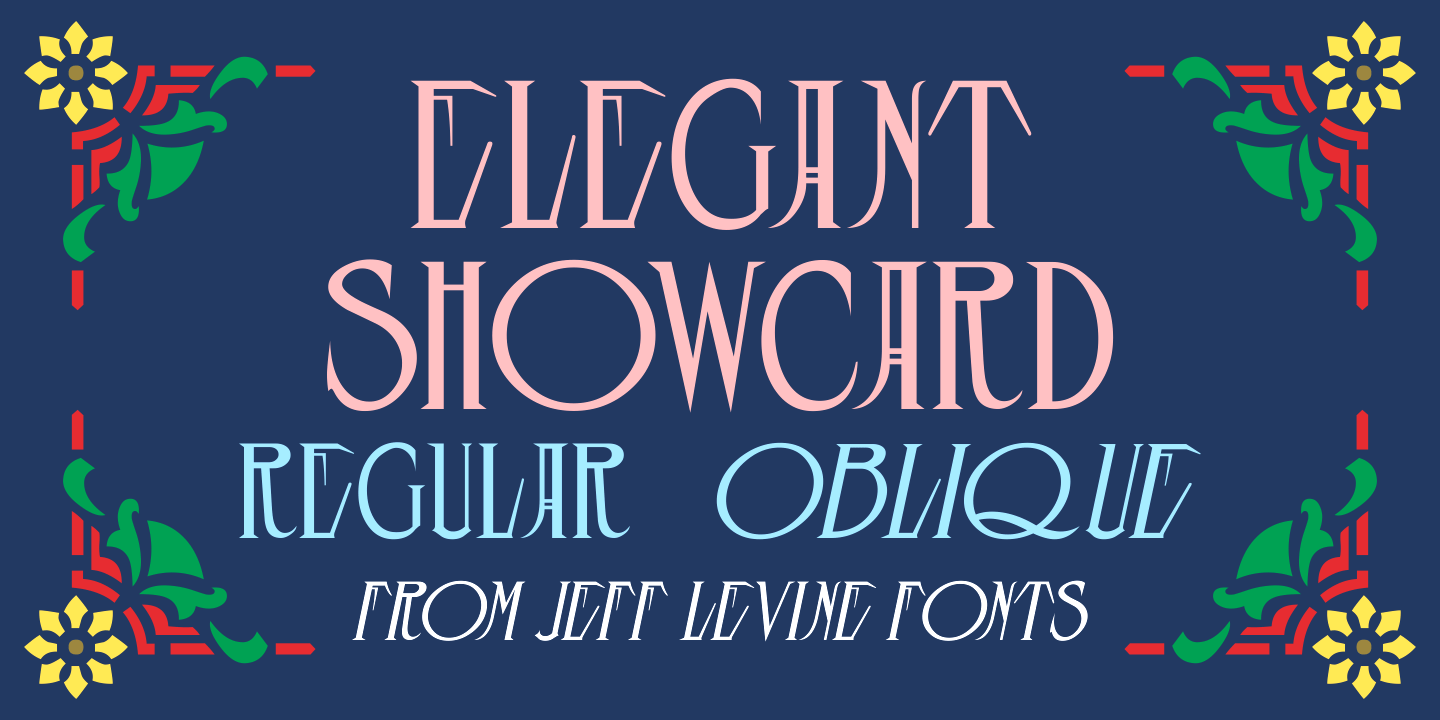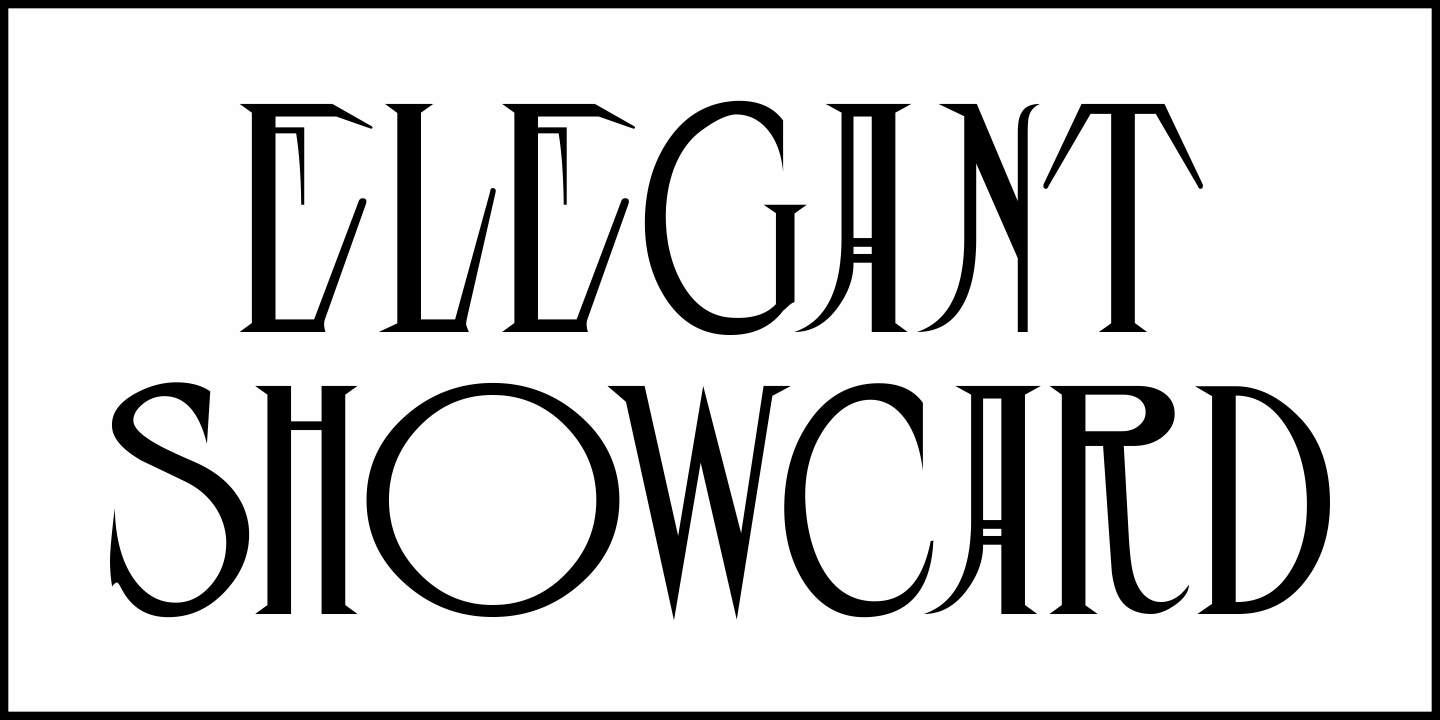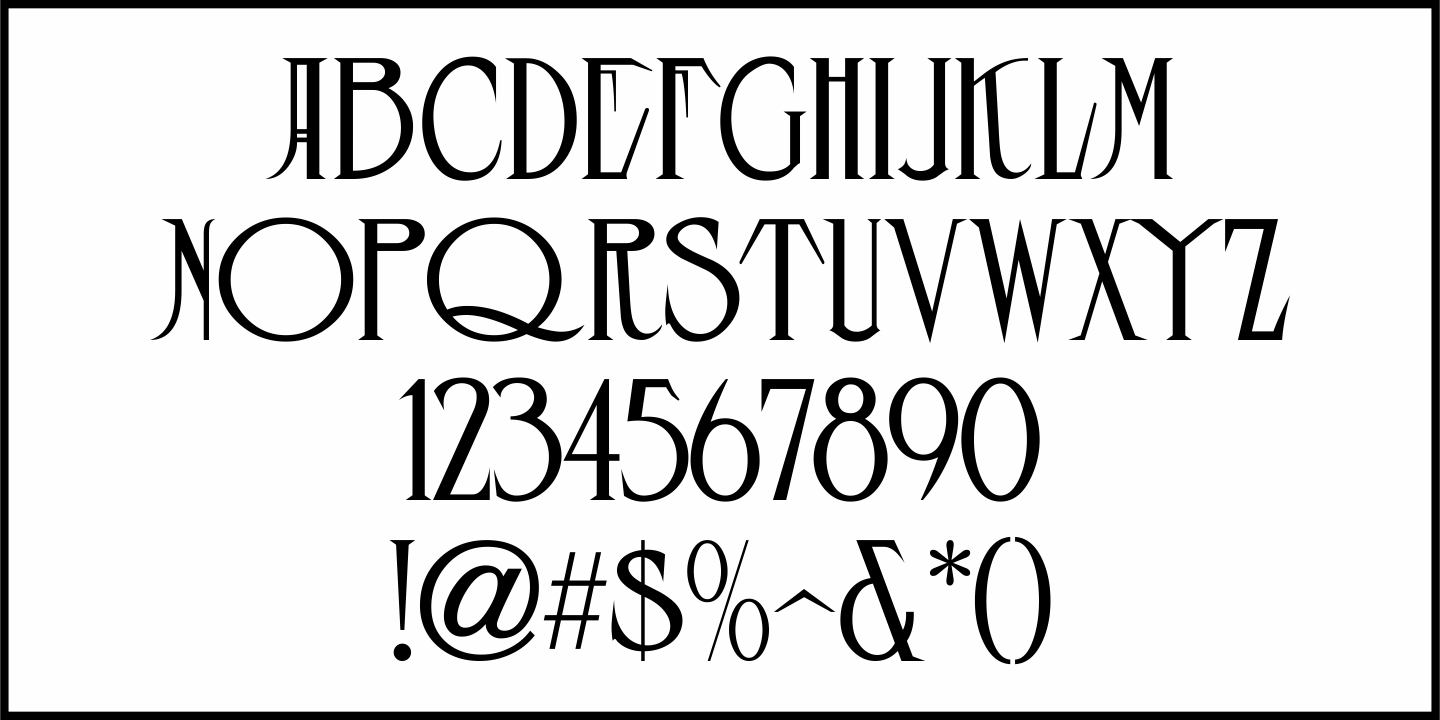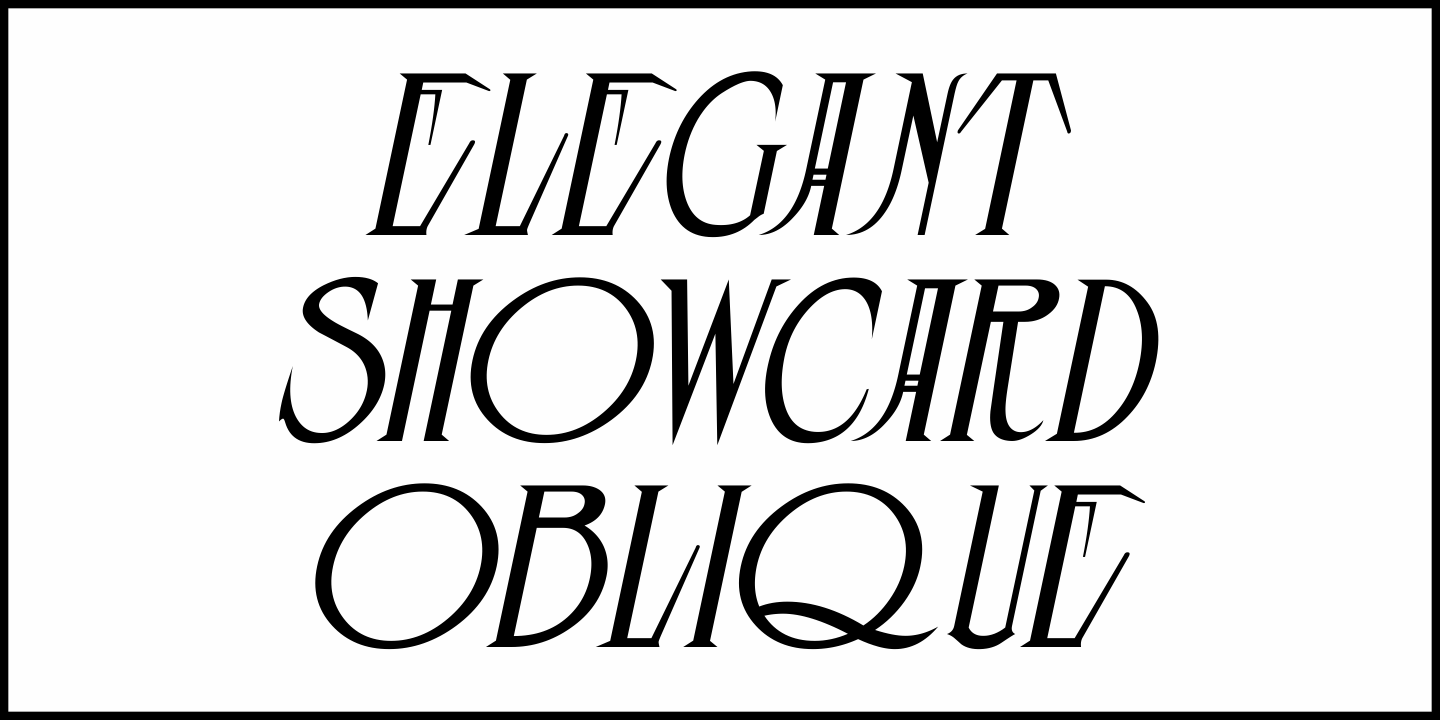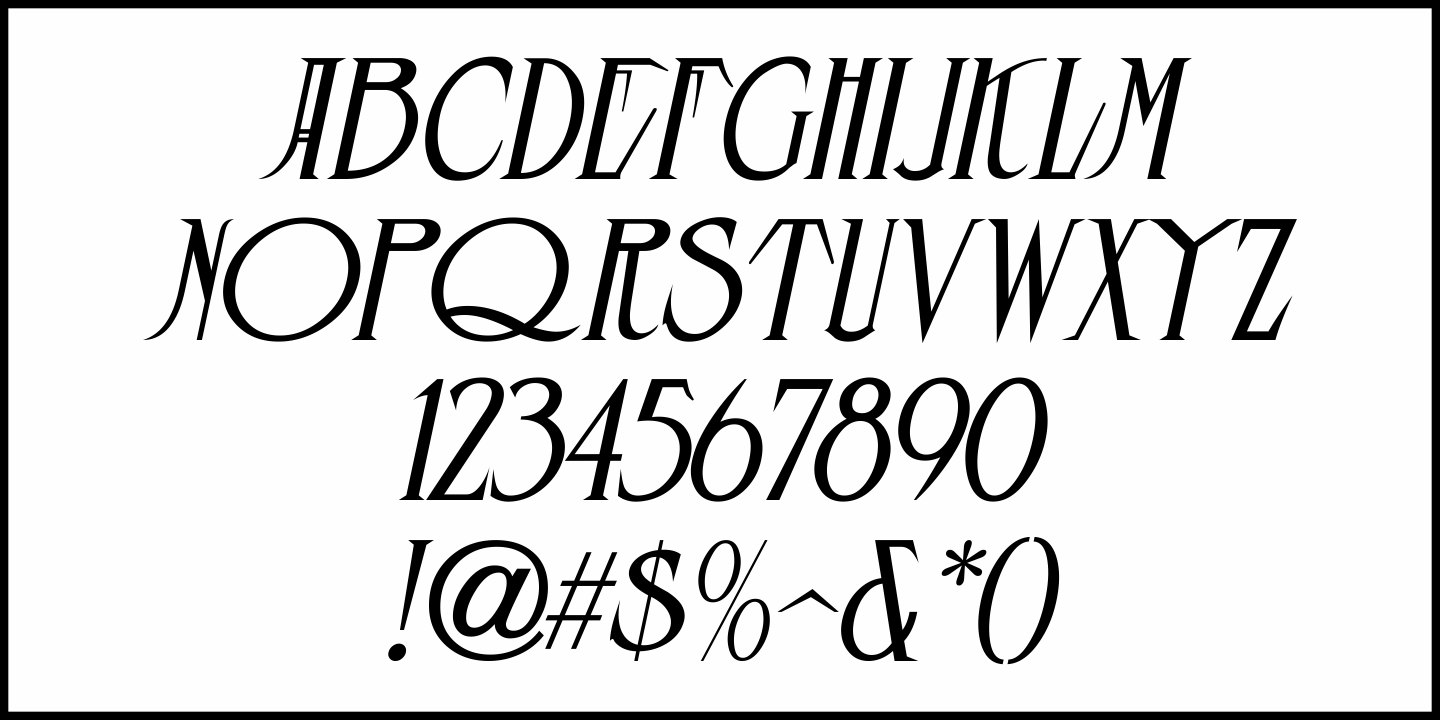
Elegant Showcard
"Baker's Showcard Book" (1916) was an early 20th Century instructional book on sign lettering.
One of the sample alphabets entitled 'Decorative Roman” was a spurred serif, Art Nouveau design that has been recreated digitally as Elegant Showcard JNL in both regular and oblique versions.